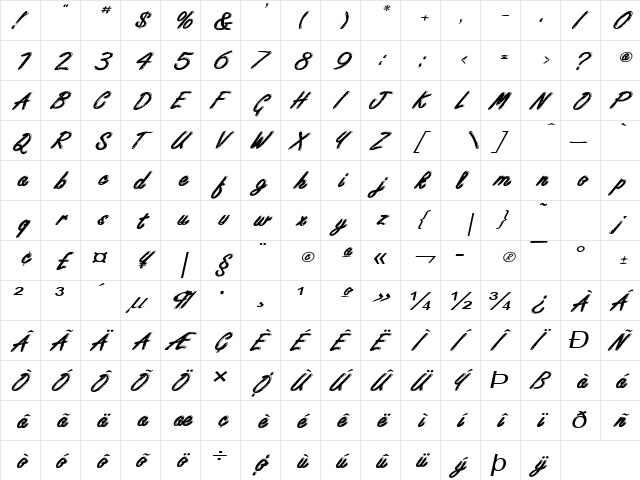
Encino Extended Italic Font Preview
Encino Extended Italic
Encino Extended Italic Font Details
Design Context for Encino Extended Typeface
Encino Extended is a composed and adaptable typeface that performs quietly and consistently across a wide range of design contexts. Its italic angle brings a sense of urgency and motion to the letterforms.